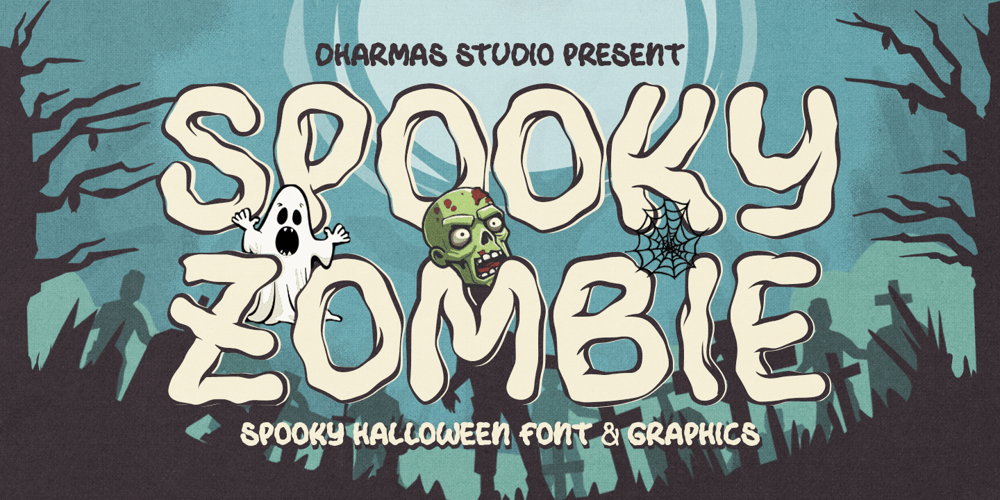
Spooky Zombie Font Family was designed by Ahmad Jamaludin and published by Ahmad Jamaludin. Spooky Zombie contains 2 styles and family package options. Just in time for your Halloween projects hopefully :)Introducing SPOOKY ZOMBIE! A font that’s ready to cast a spooky spell on your designs. This eerie display font is the perfect choice for all your Halloween-related projects and crafty ideas. Plus, we’ve included an Outline version of the font as a little bonus.When you get Spooky Zombie, you’ll also receive 26 spook-tacular Halloween doodles that perfectly complement your hair-raising projects!What’s Included? Spooky Zombie Main File 26 free doodles with a Halloween theme Regular and Outline version Instructions (Access special characters, even in Cricut Design) Unique Letterforms Works on PC & Mac Simple Installations Accessible in Adobe Illustrator, Adobe Photoshop, Microsoft Word even Canva! PUA Encoded Characters. Fully accessible without additional design software. Multilingual Supports: (Afrikaans, Albanian, Catalan, Croatian, Czech, Danish, Dutch, English, Estonian, Finnish, French, German, Hungarian, Icelandic, Italian, Lithuanian, Maltese, Norwegian, Polish, Portuguese, Slovenian, Spanish, Swedish, Turkish, Zulu)Thank you,Dharmas Studio